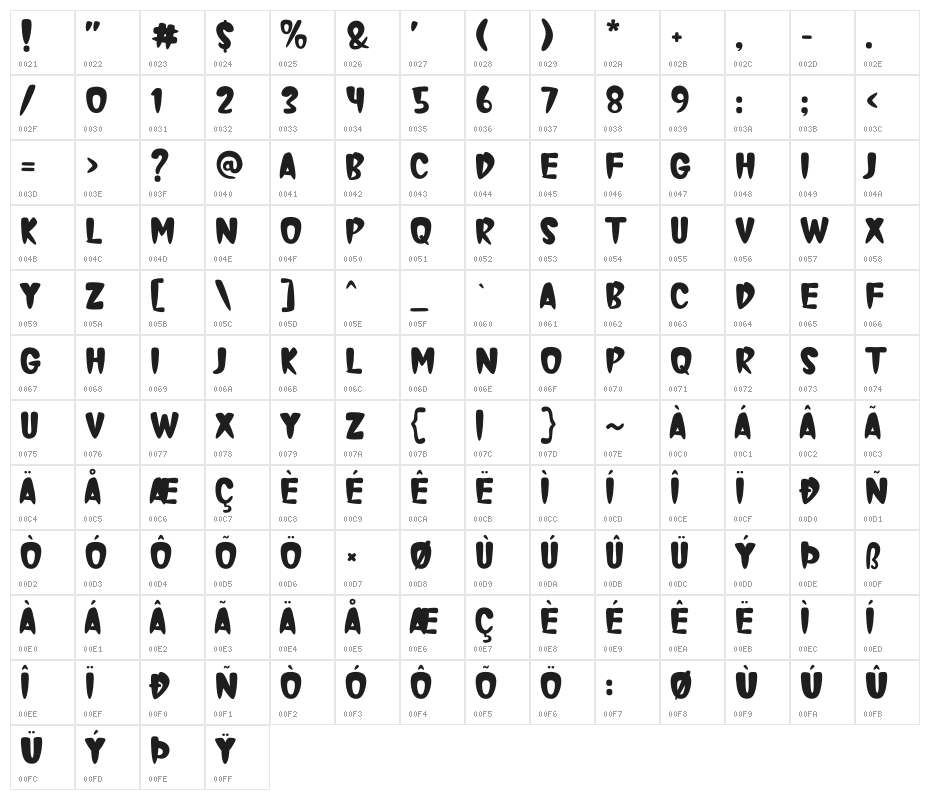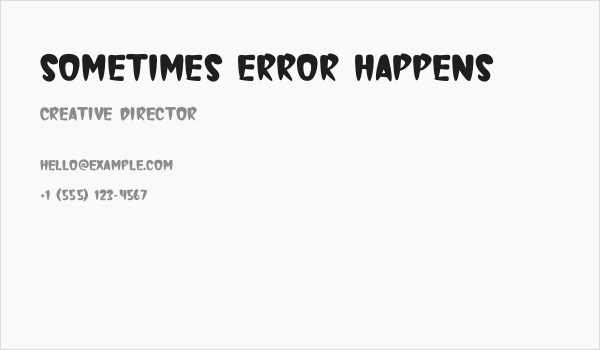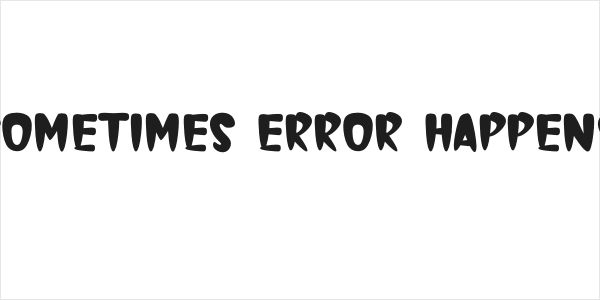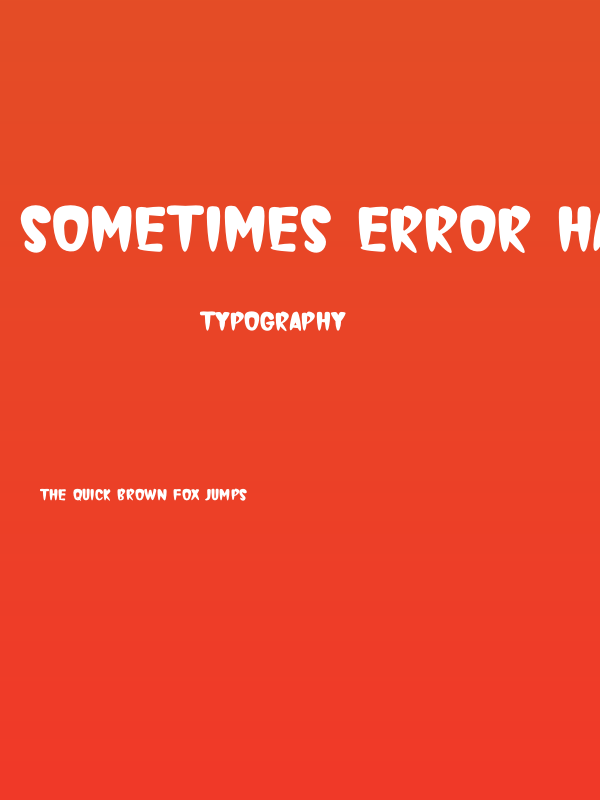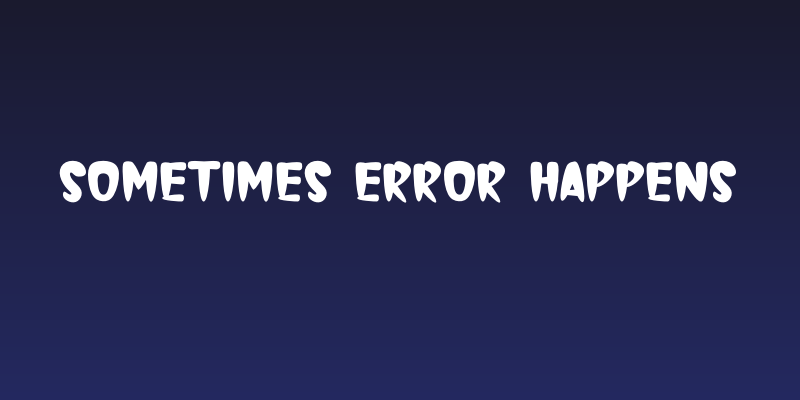
Sometimes Error Happens Font
Sometimes Error Happens Description
This font features a bold, playful style with rounded edges and a hand-drawn appearance. The letters are thick and slightly irregular, giving them a casual and friendly vibe. The uppercase and lowercase letters maintain a consistent style, with a noticeable emphasis on curves and rounded forms. Numbers and special characters follow the same playful design, making the font versatile for various uses. The overall look is informal and approachable, suitable for projects that require a fun and engaging typeface.
| Proposed Projects | Ideal for children's books, playful branding, casual invitations, and creative posters. |